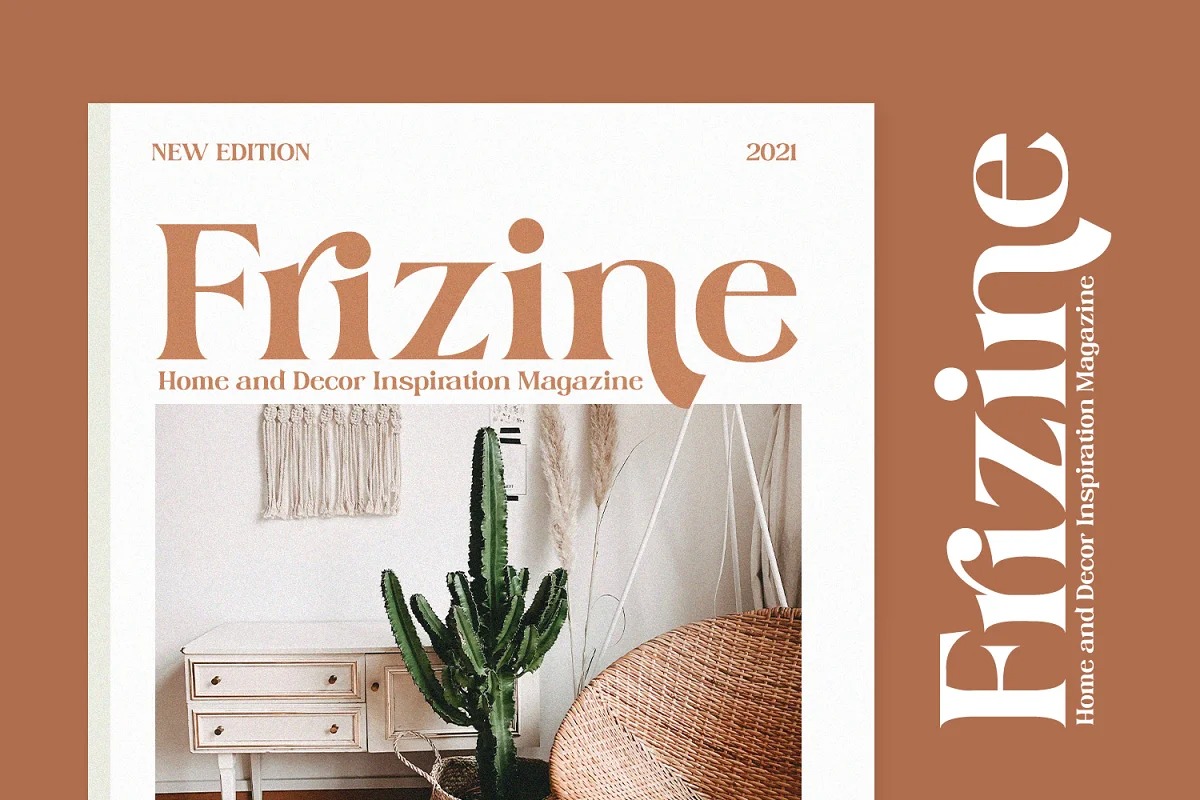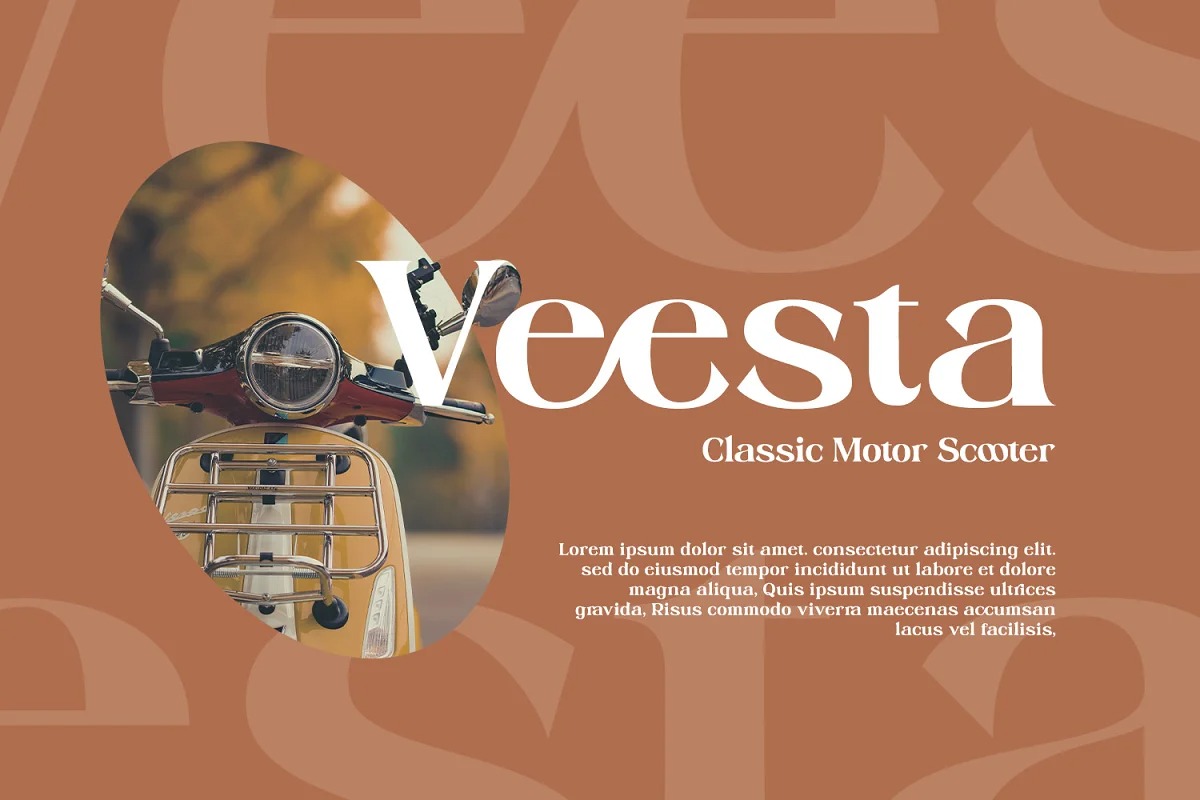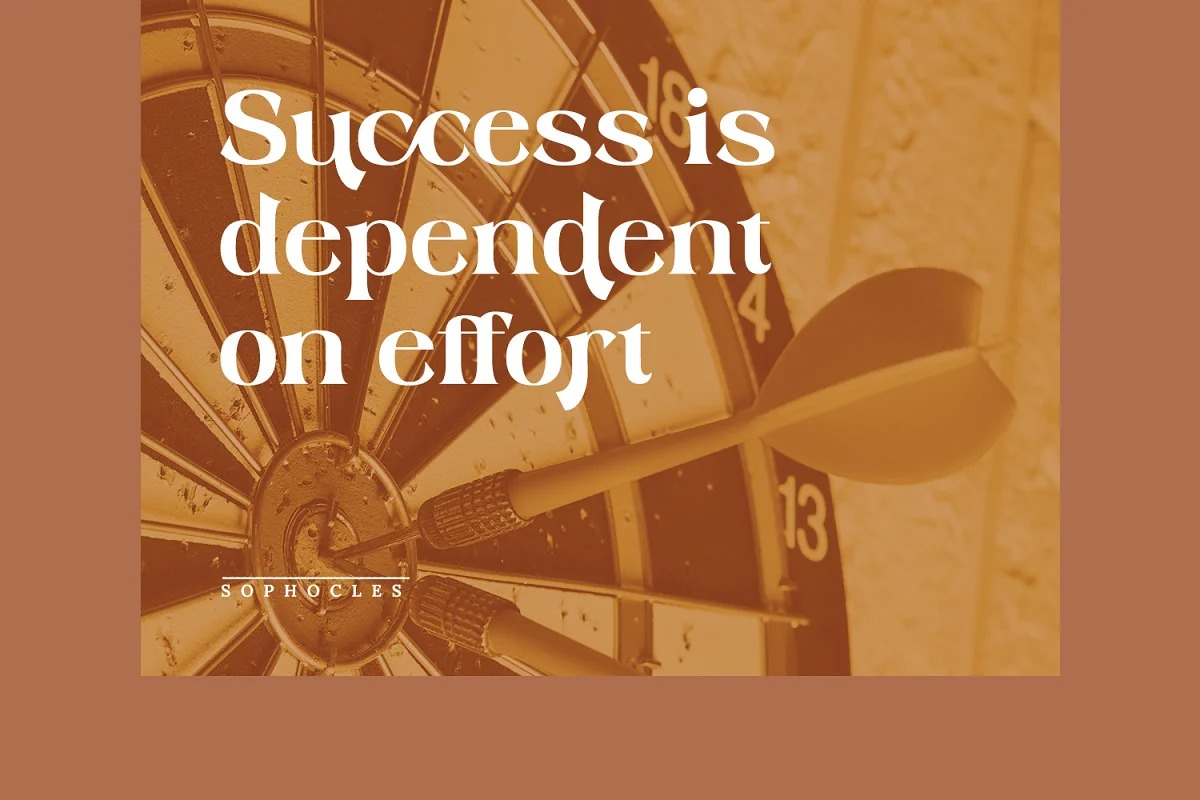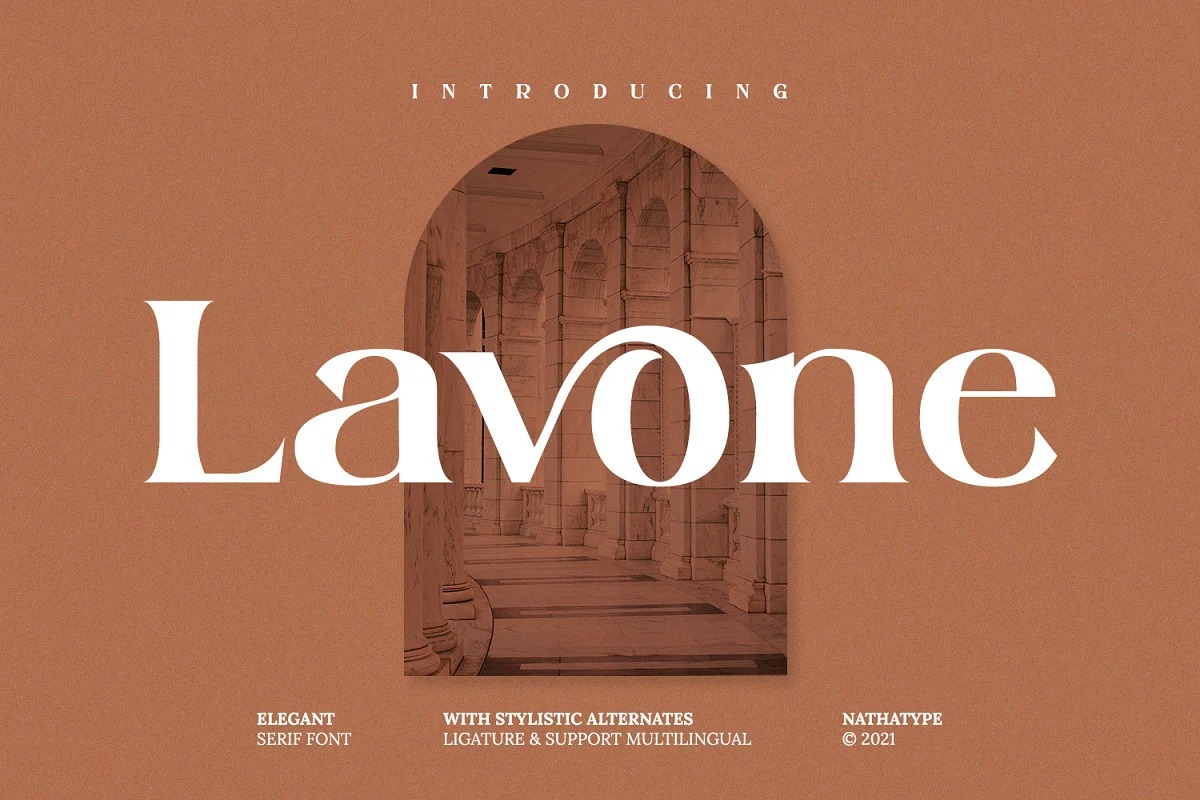
Lavone Serif Font
It’s an elegant and distinct serif font manufactured by Din Studio. Designed primarily as a captivating handcrafted with style. It has a classy, elegant and modern look that can be used for logos, branding, invitations, stationery, wedding designs, social media posts, and much more! This typeface that is easy on the eyes font that excels at captivating headlines, or large branding text, the font oozes that cute aesthetic that just makes you go “aww!”